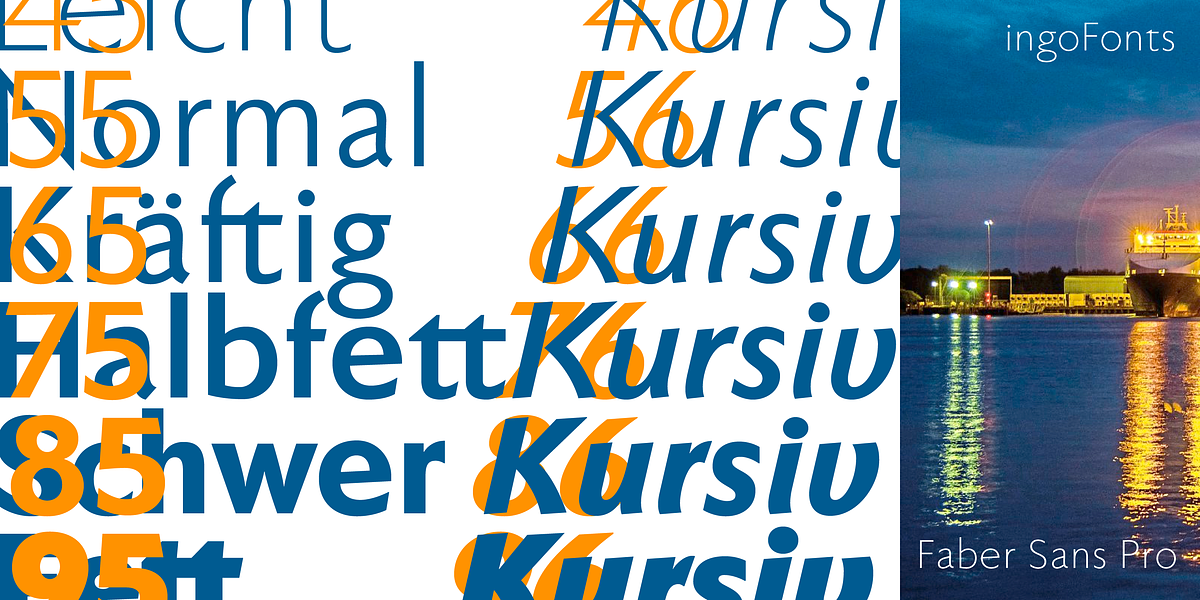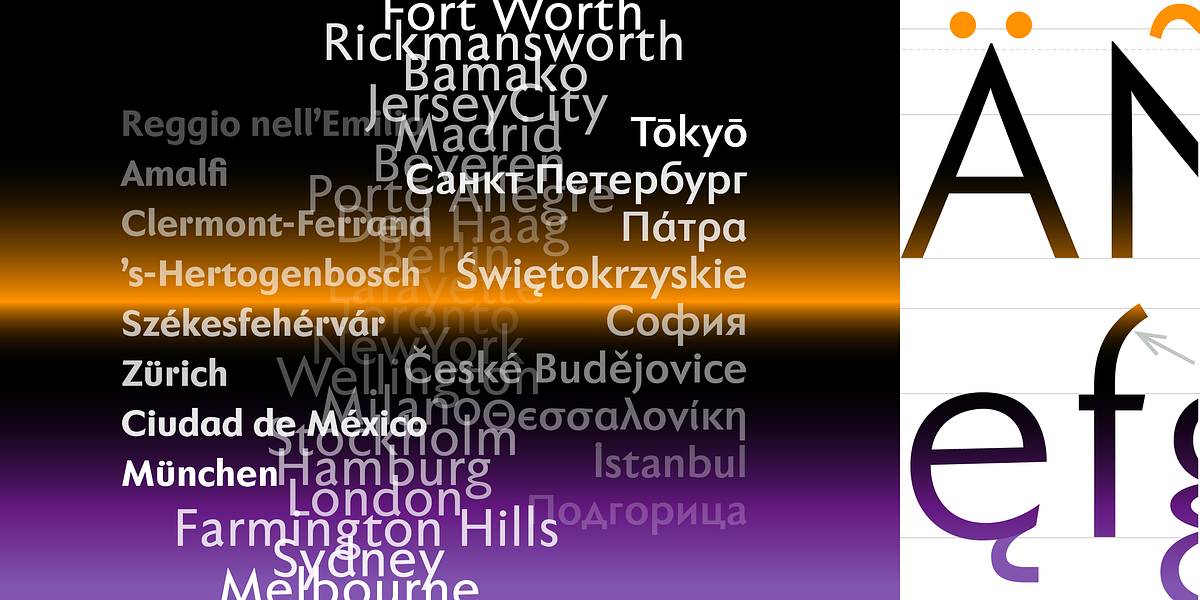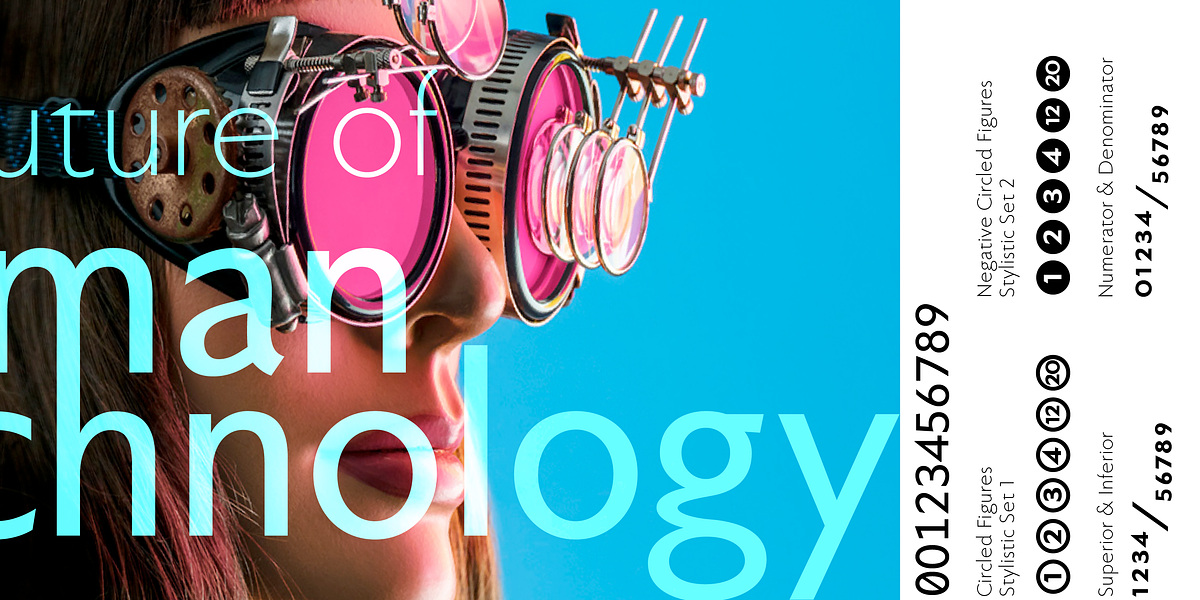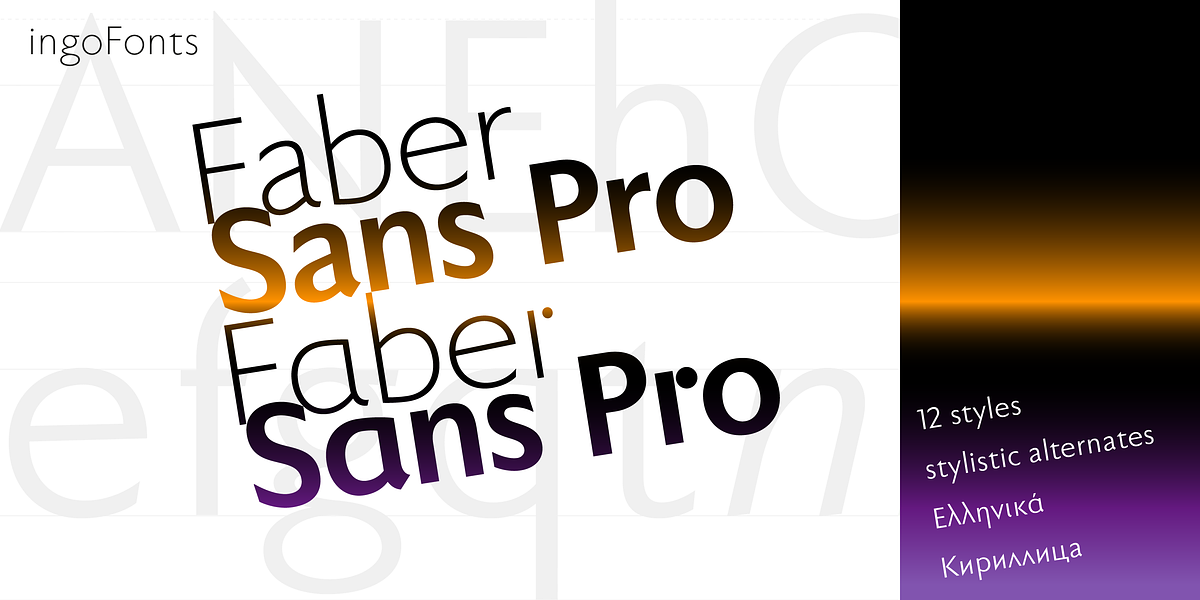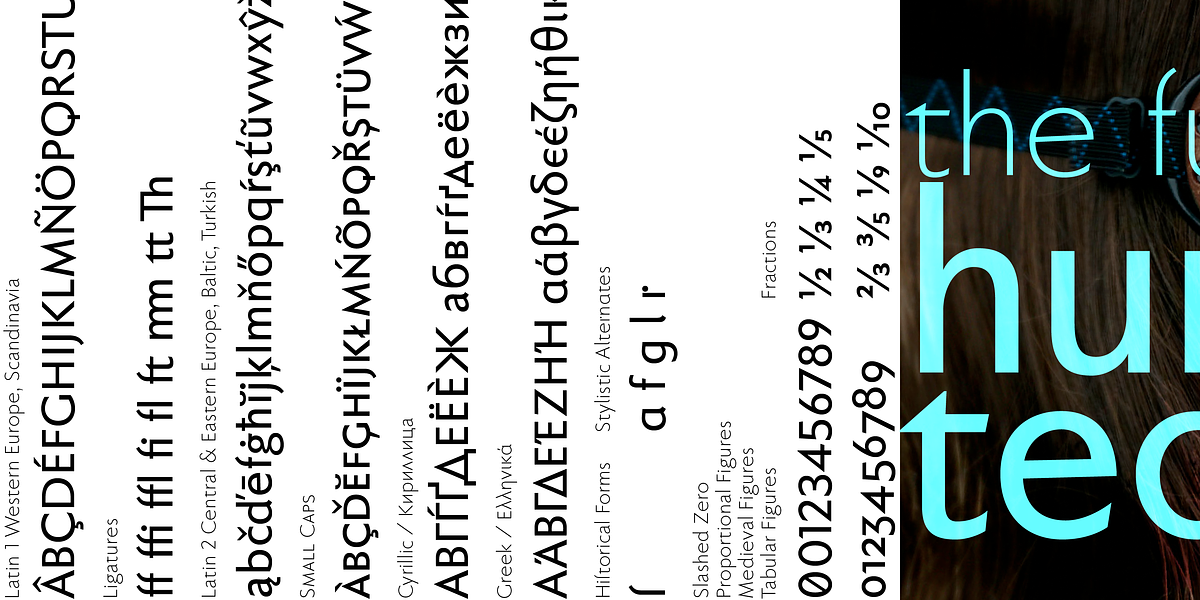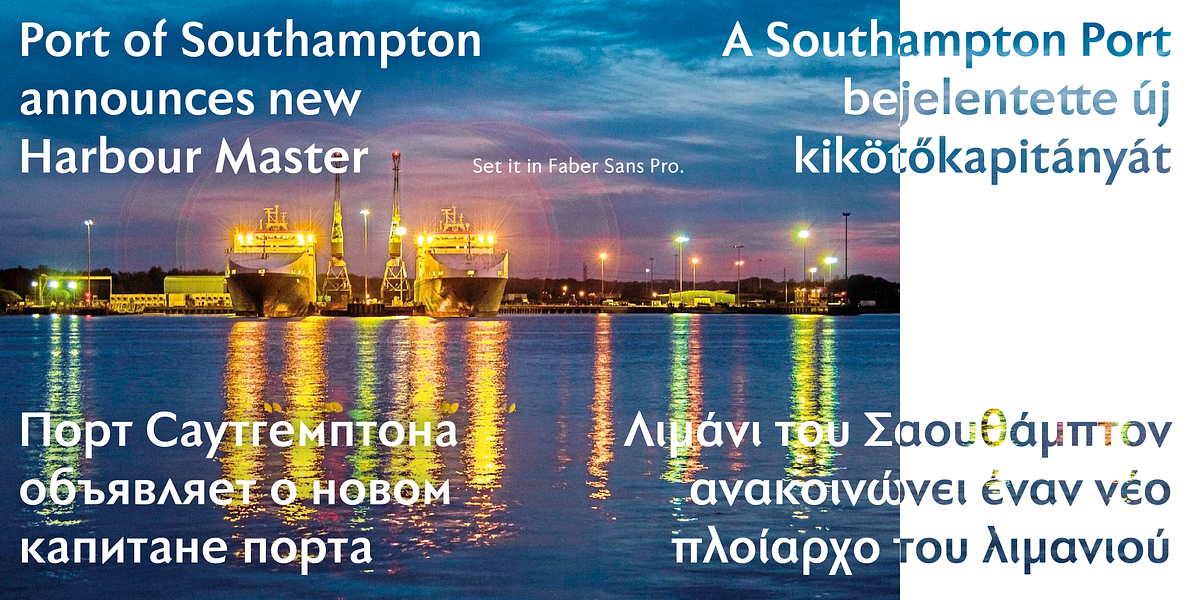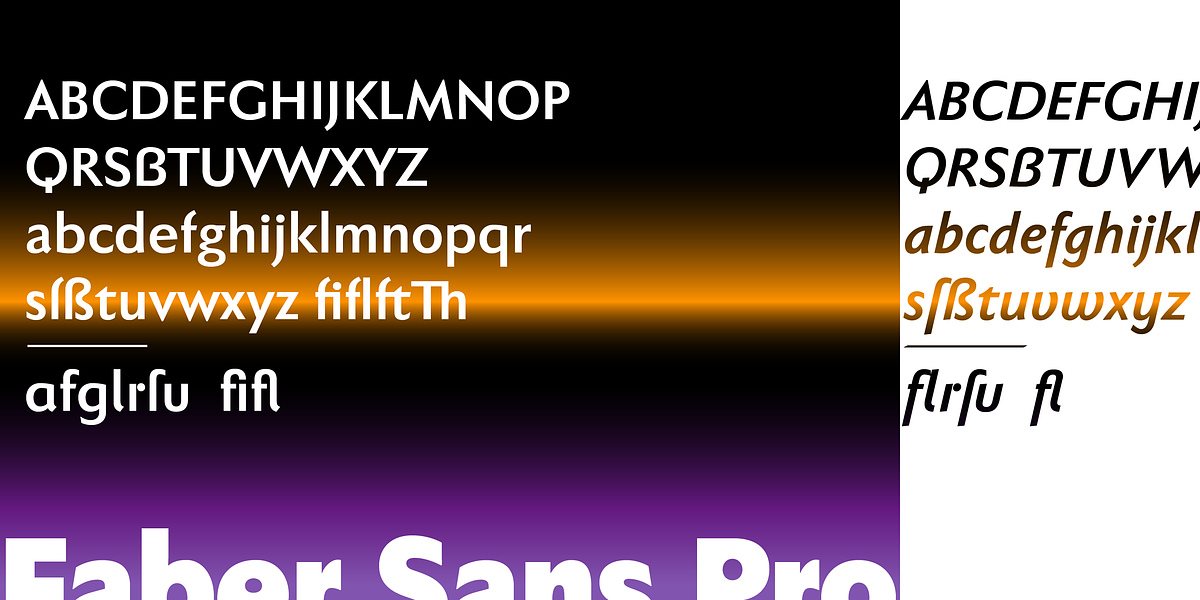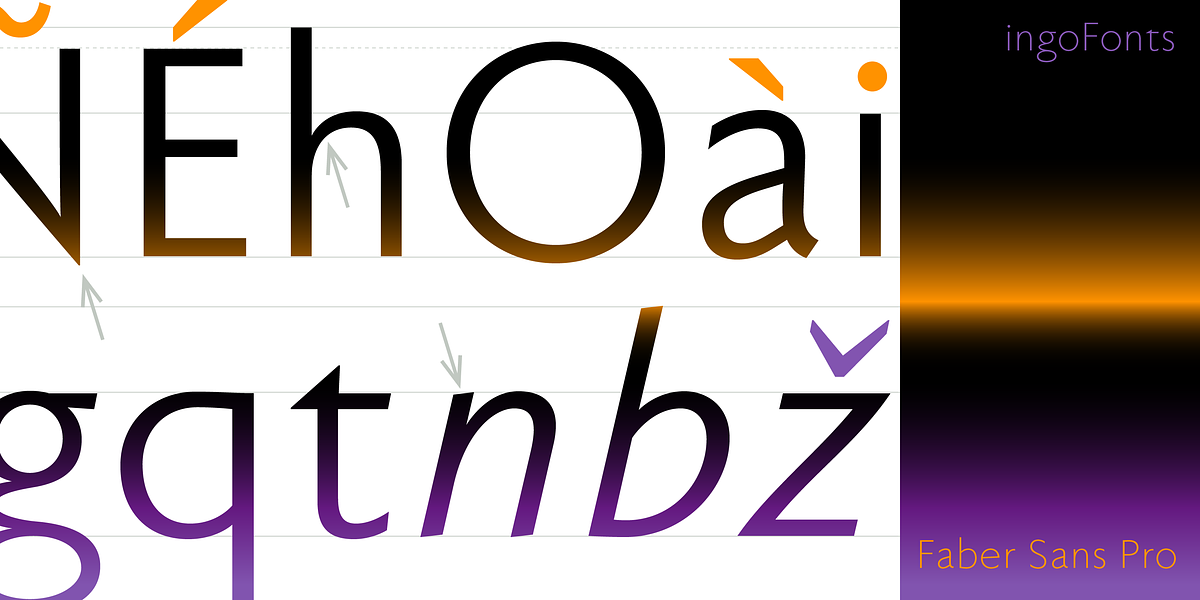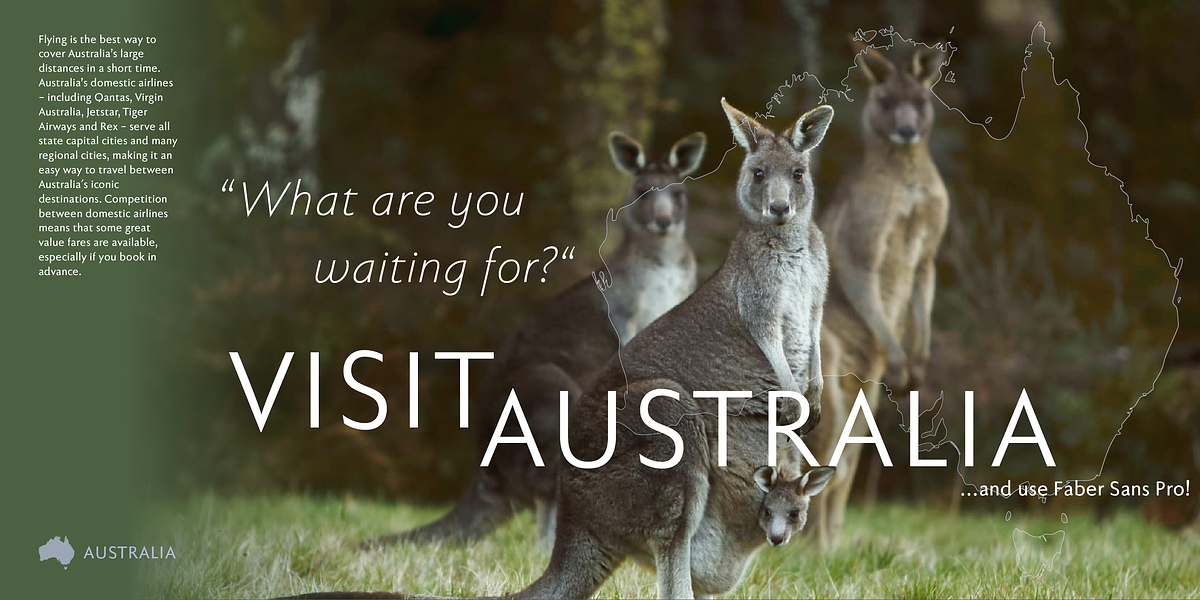
Faber Sans Pro
Faber Sans is a humanist sans serif font inspired by classic designs like Futura and Gill Sans. It boasts pleasant proportions and rhythmic shapes, making it highly legible for extended text. The font's defining feature is the wide, round forms of characters like 'b', 'c', 'd', 'e', 'o', 'p', 'q', 'C', 'D', 'G', 'O', and 'Q'. This characteristic is further emphasized in its stylistic alternates, which introduce rounded 'a' and 'g' for a softer feel. The italic variant isn't simply a slanted version but features unique, handwriting-inspired designs for characters like 'a' and 'g'. Faber Sans also includes OpenType features like small caps, tabular figures, old style figures, circled numbers, negative circled numbers, fractions, and stylistic sets.